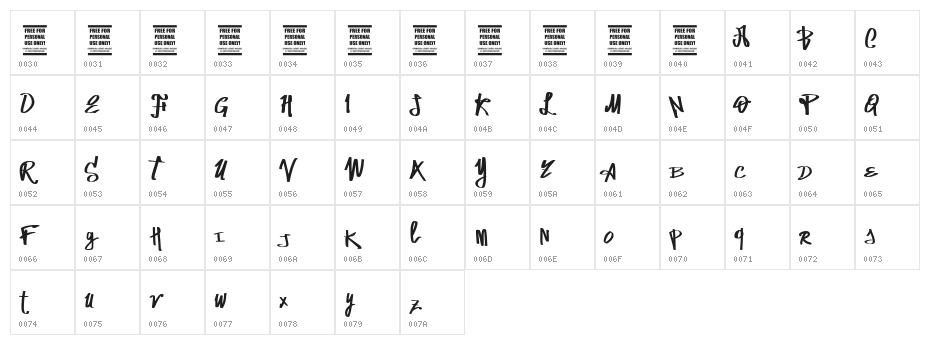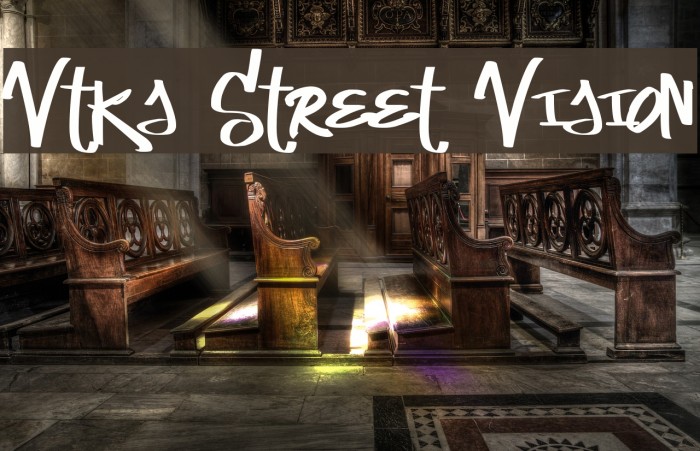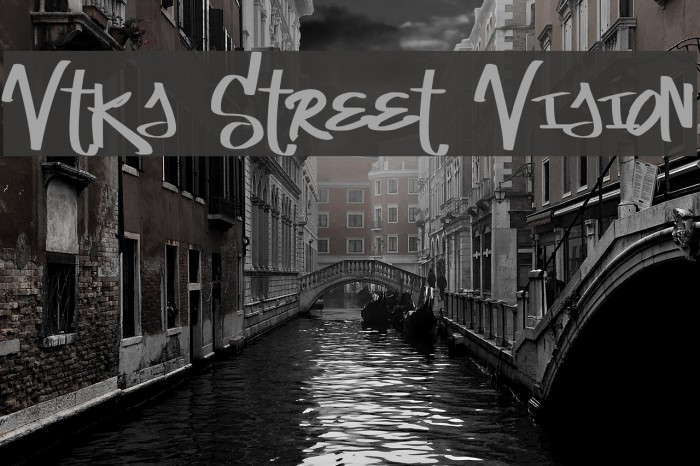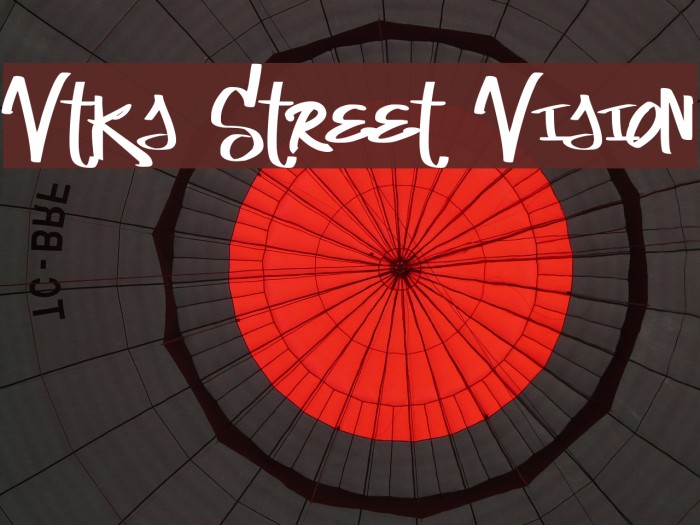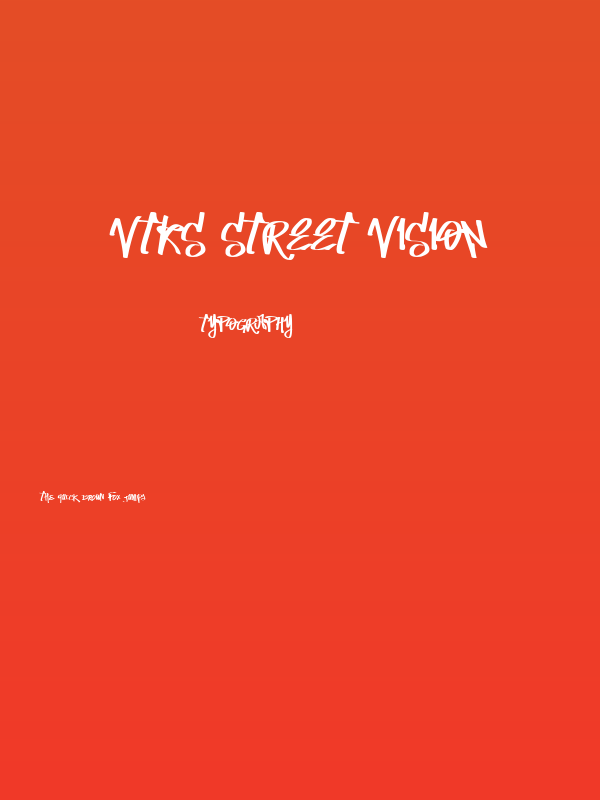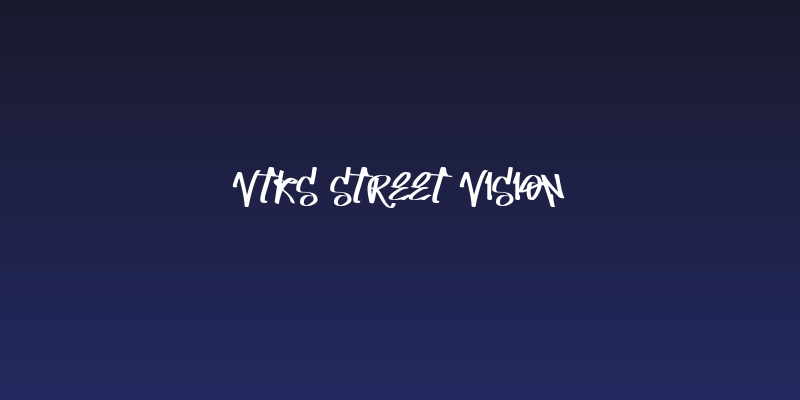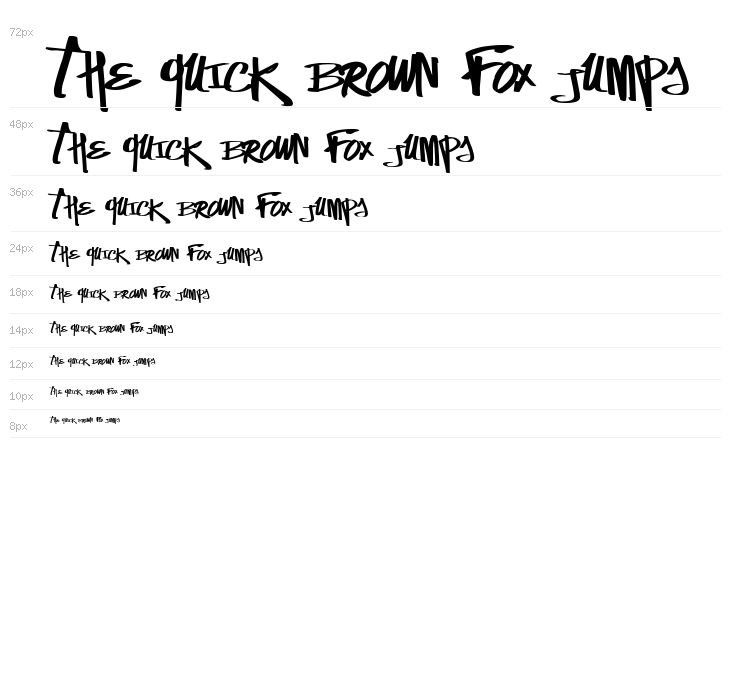
Vtks Street Vision Font
Vtks Street Vision Description
This font features a bold, graffiti-inspired style with dynamic, flowing lines and a strong urban aesthetic. The characters are highly stylized, with exaggerated curves and angles that give them a sense of movement and energy. The uppercase and lowercase letters maintain a consistent visual theme, while the numbers and special characters complement the overall design. This font is ideal for projects that require a bold, expressive look, such as street art, urban branding, or edgy graphic design.
| Overall Style | Urban, Graffiti, Expressive |
| Proposed Projects | Street art designs, urban branding, edgy graphic design projects, music album covers, and event posters. |